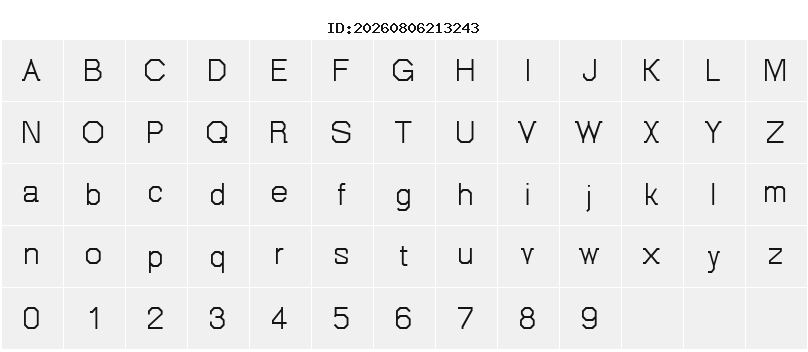
• Font Name: Octovetica Free
• Full Font Name: Octovetica Free
• Designer: Guillaume-Ulrich Chifflot
• Manufacturer: Guillaume-Ulrich Chifflot (N9 Multimedia Lab)
• Description: Octovetica Free is N9.037X, and is a freeware release. The rest of the Octovetica family (N9.037) is commercial, and offers a full glyph set, all signs accents and diacritics, and more than 500 kerning pairs. This is v2.0, released July 1st, 2016.
About Octovetica Free.ttf
Octovetica Free.ttf is a modern, elegant sans-serif font designed for ultimate readability and visual harmony. Perfect for branding, headlines, web design, and print materials.